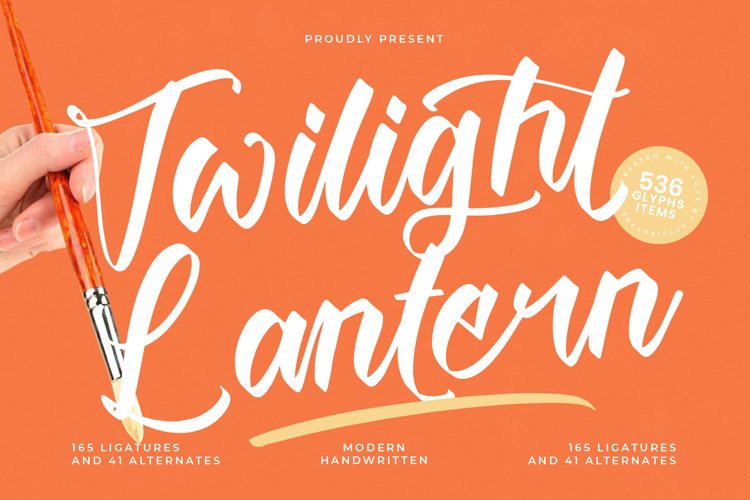
Twilight Lantern - Modern Handwritten Font
Expertly crafted, Twilight Lantern - Modern Handwritten Font boasts an impressive suite of 165 ligatures and 41 alternates, alongside 536 glyphs. These rich OpenType features provide extensive creative freedom, enabling seamless letter connections and varied character compositions that mimic genuine handwriting, ensuring each design possesses a truly unique personality and fluid readability.
Reach a wider audience effortlessly with this globally-minded typeface. With its extensive multilingual support, Twilight Lantern - Modern Handwritten Font adapts seamlessly across global markets, making it incredibly versatile for international projects. This robust adaptability ensures your message resonates clearly and beautifully, transcending linguistic barriers with sophisticated appeal.
Perfect for making a truly unforgettable impression, Twilight Lantern - Modern Handwritten Font is ideally suited for luxury branding, sophisticated packaging, high-end editorial design, and personalized wedding invitations. It also excels in creating captivating social media graphics, impactful logos, and any project demanding a distinctive, handcrafted signature style that stands out.